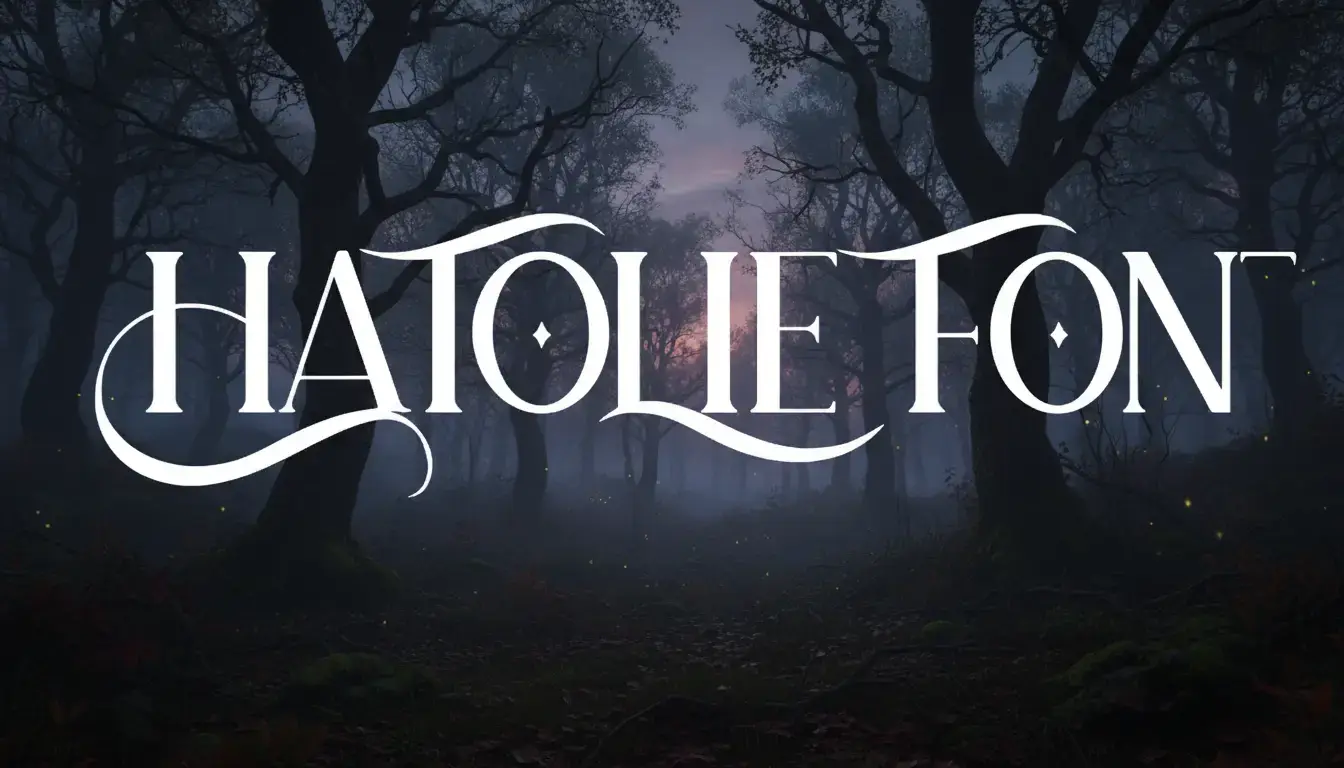
Hatolie Font
Hatolie is a fancy font designed by Gilar Studio. It's a decorative display font with plenty of personality, made to grab attention. It's a free download, and you can try it with your own text in the preview above first.
What You Can Type With Hatolie
With complete upper and lowercase letters and all ten digits, Hatolie is ready for real wording, not just a single headline. Common punctuation such as &, !, ? and # is included as well. It also has the accented letters you need for Spanish, French, Portuguese and Italian.
Where Hatolie Works Best
Designers usually reach for fonts like Hatolie when they're making posters, logos and eye-catching headlines. Use it for one standout word or headline and let simpler fonts handle the rest.
Does Hatolie support accented letters?
Yes. Hatolie includes the accented letters needed for Spanish, French, Portuguese and Italian, so it works for more than just English.